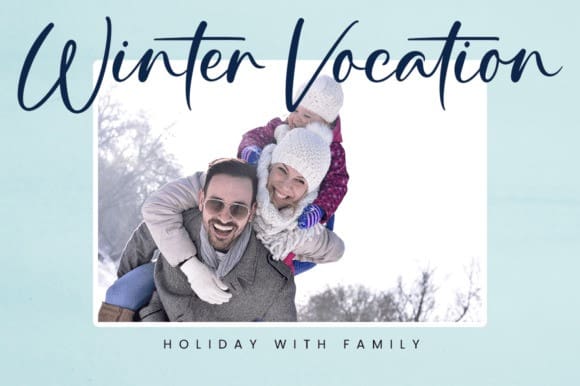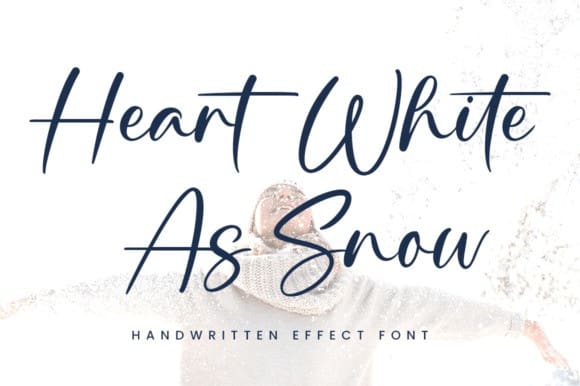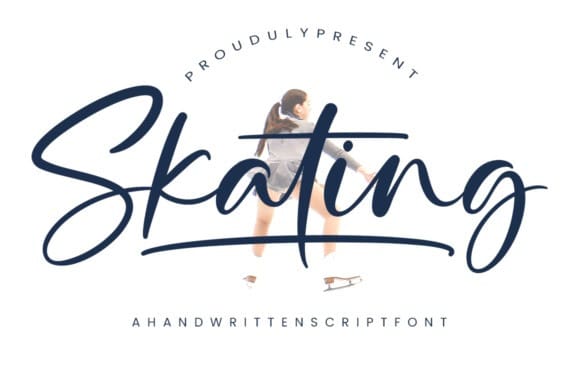
Skating Script Font
Skating Script Font is a lovely and delicate script font that exudes elegance and class. This font was particularly crafted for those who need a beautiful and refreshing look to their designs.